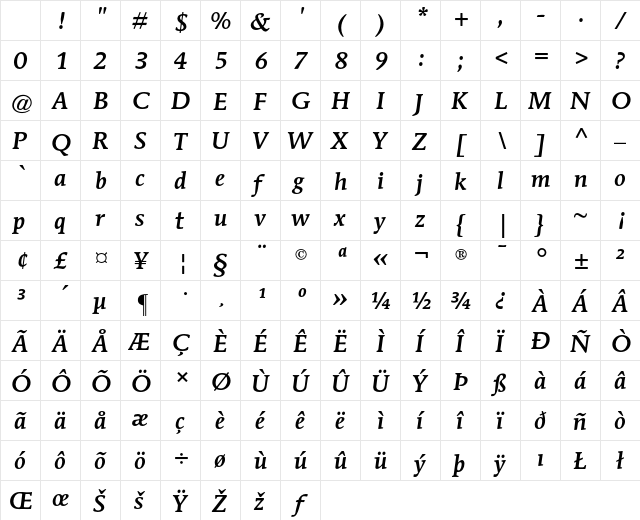
Complete Mendoza Roman AT Medium Italic glyph index. Displaying only characters natively supported by Mendoza Roman AT Medium Italic font.
Mendoza Roman AT Medium is a composed and adaptable typeface that performs quietly and consistently across a wide range of design contexts. The slanted form adds forward momentum and visual energy.